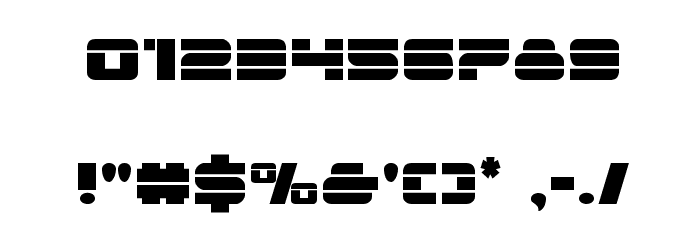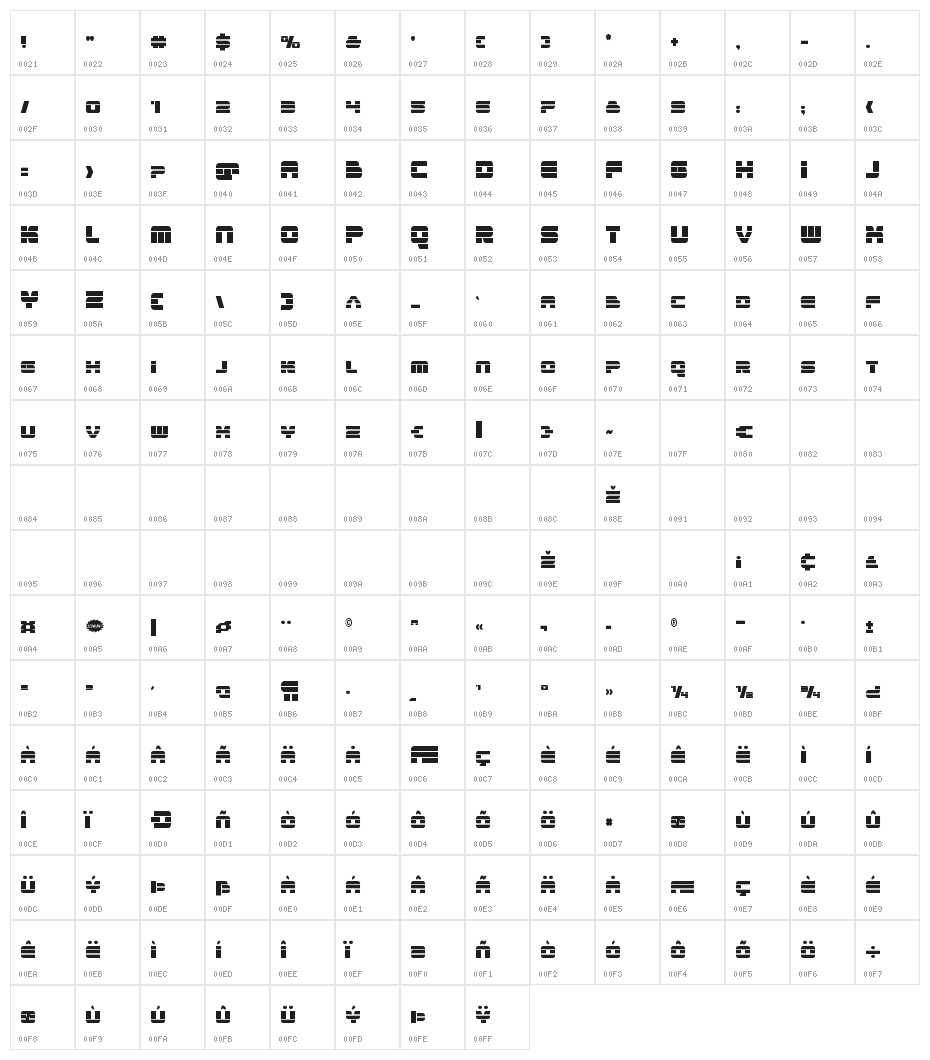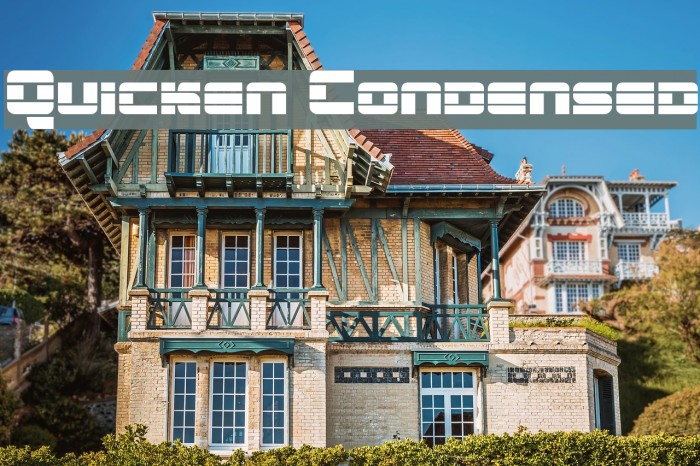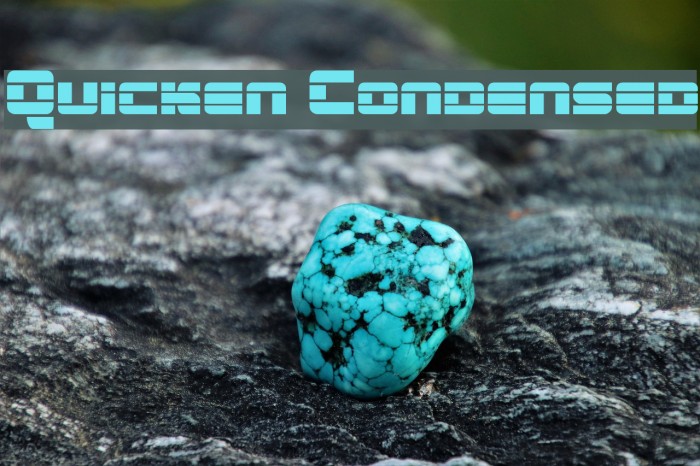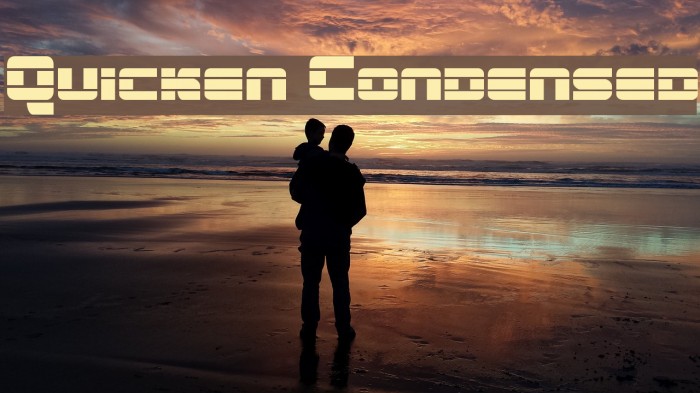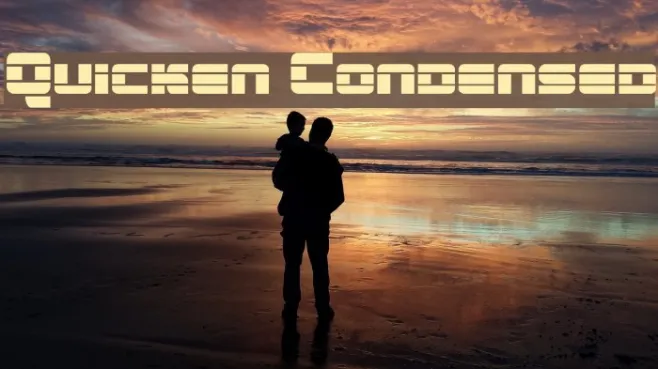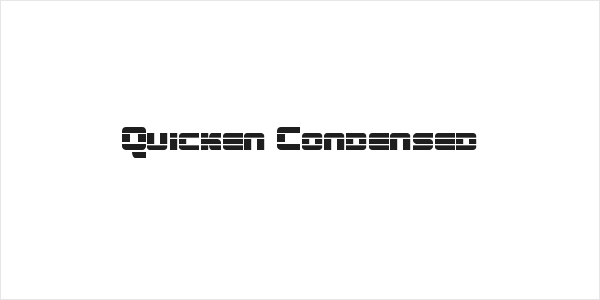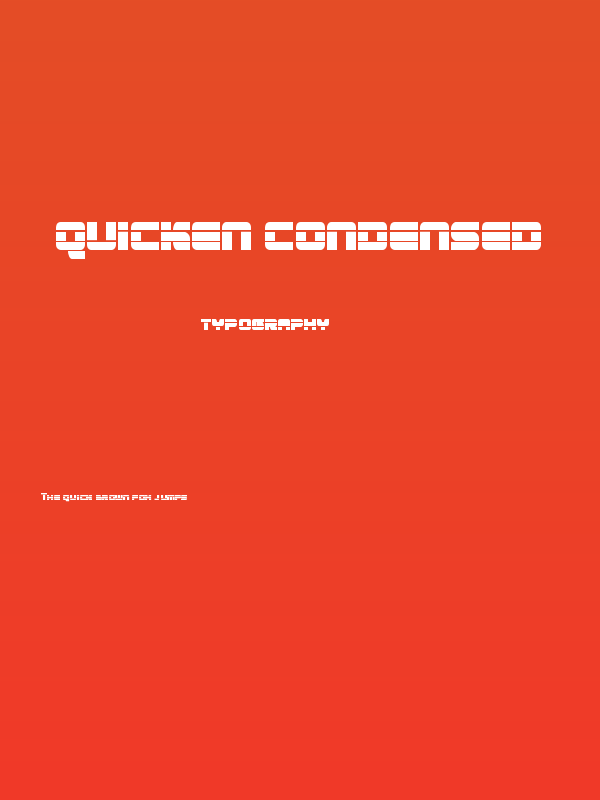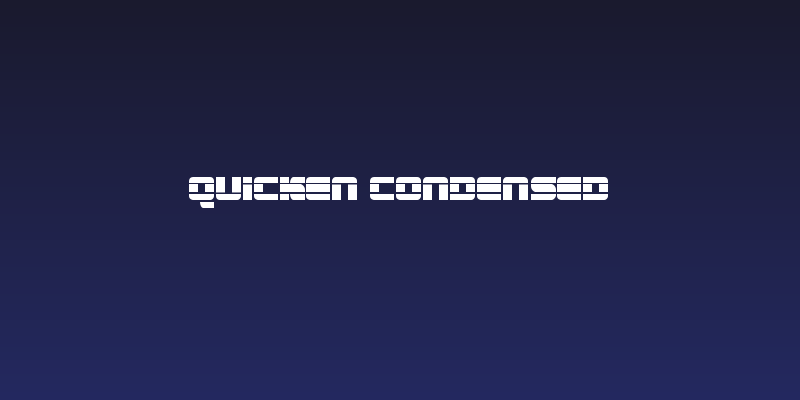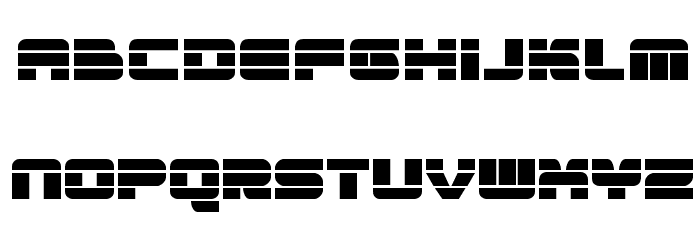
Quicken Condensed Font
Quicken Condensed Description
This font features a bold, geometric design with a distinctly futuristic and industrial feel. The characters are constructed with solid, block-like shapes, creating a sense of strength and modernity. The condensed nature of the font allows for efficient use of space, making it ideal for impactful headlines and titles. The uniformity in stroke width across all characters provides a cohesive and structured appearance, while the angular cuts and edges add a dynamic and edgy touch. This font is particularly suited for projects that require a modern, tech-inspired aesthetic.